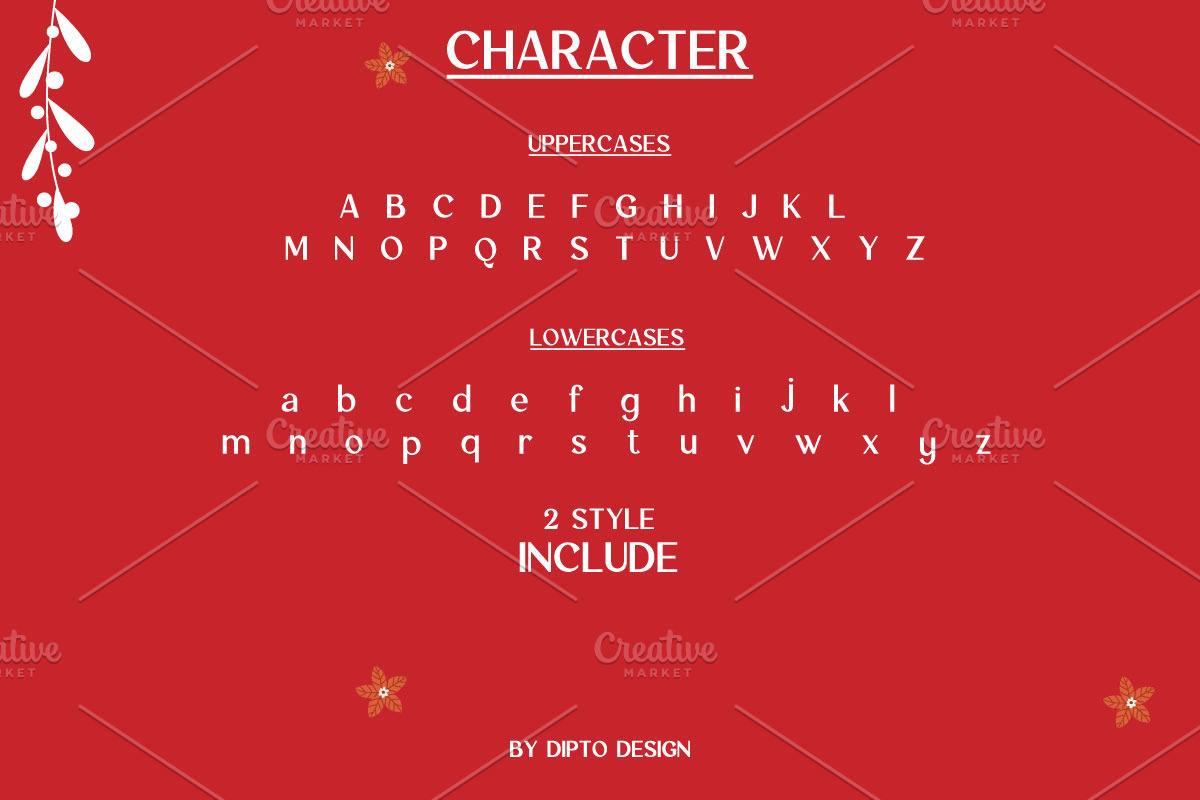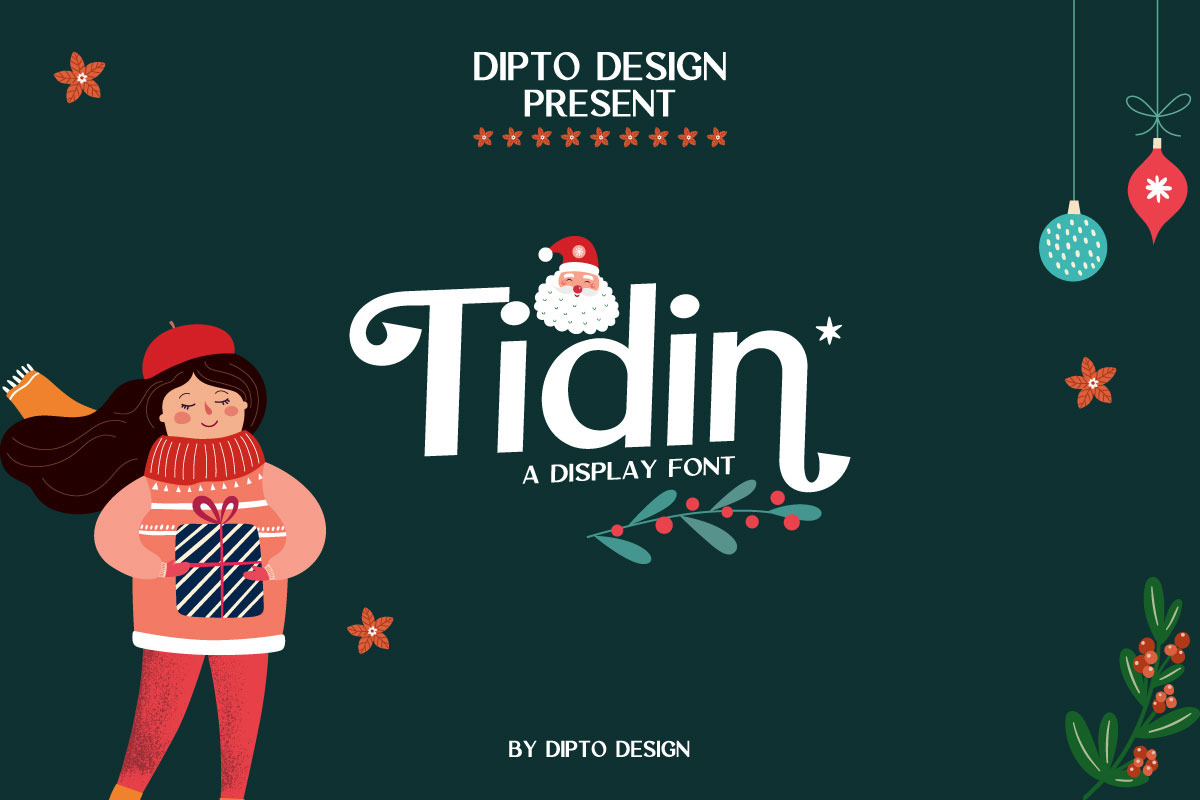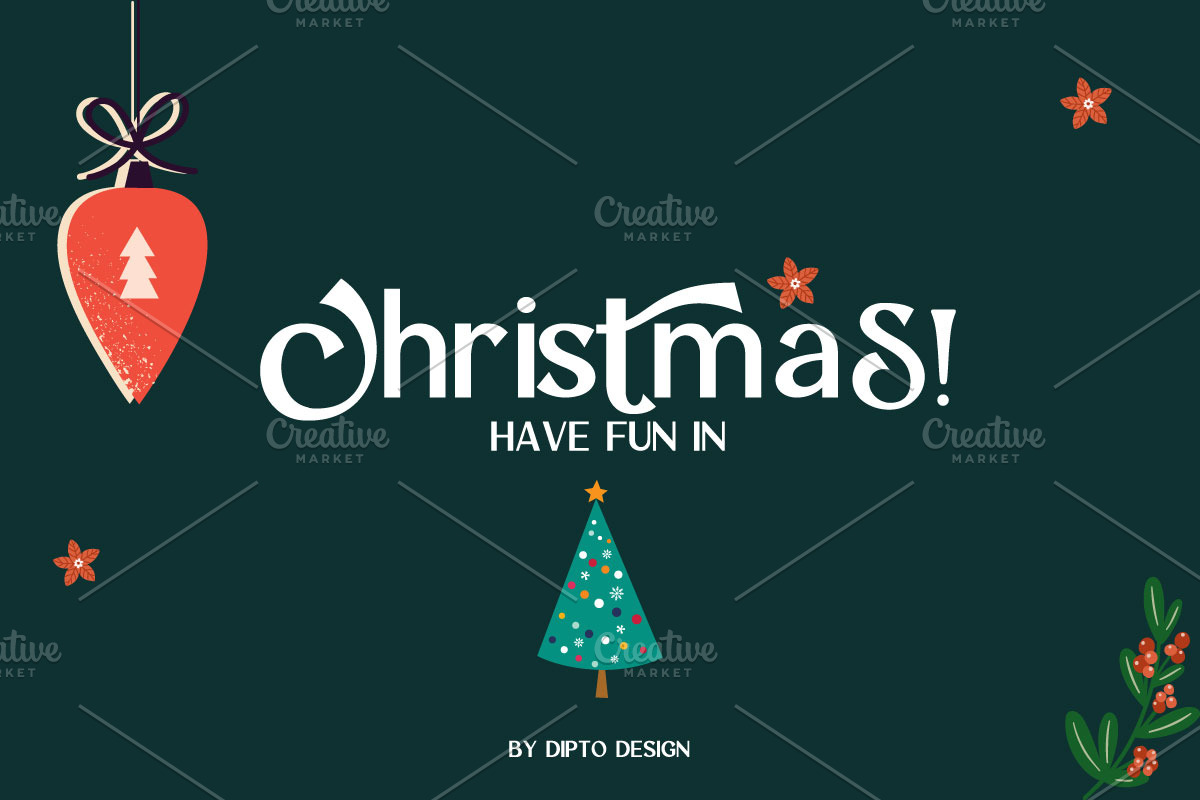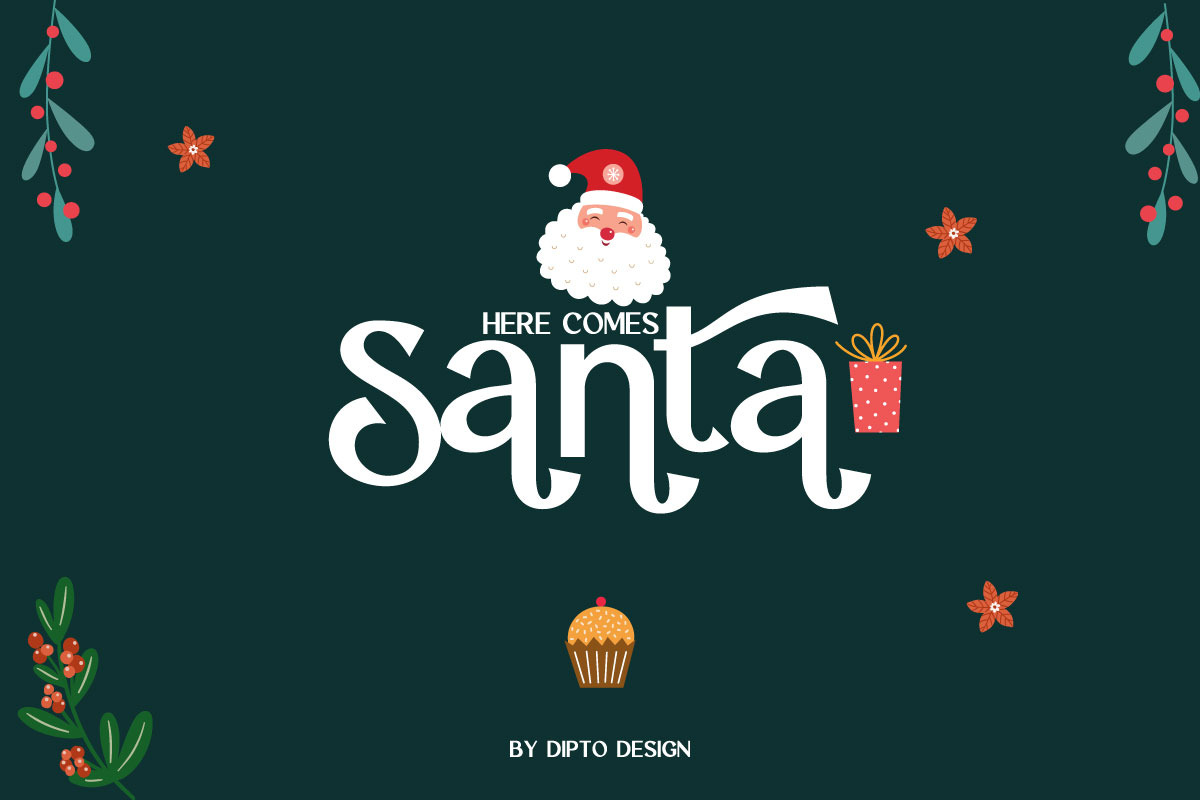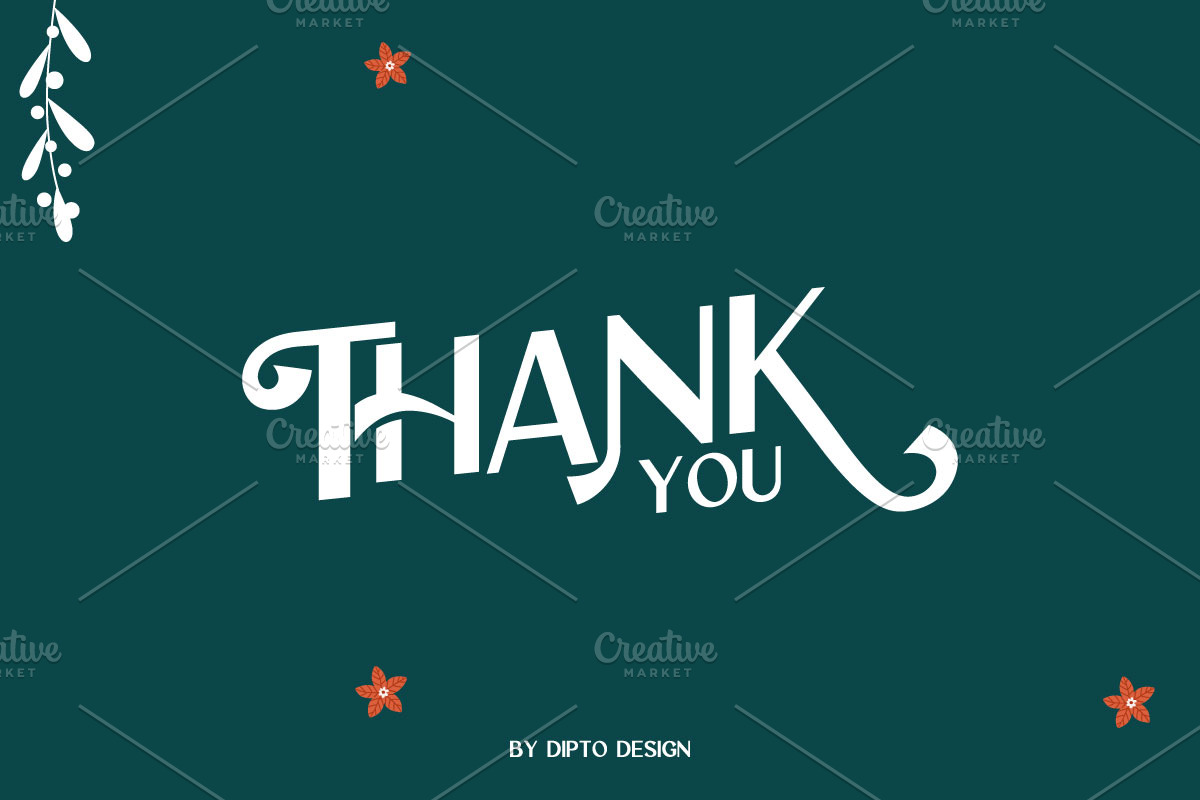
Tidin-Christmas Typeface
Introducing 'Tidin' font, where the magic of the holiday season dances in every letter. With an enchanting blend of style and festivity, this font is your ticket to a world of enjoyable design. It effortlessly wraps your words in the warmth of a cozy, cheerful fireplace, making your creations as delightful as a cup of cocoa by the Christmas tree. 'Tidin' font turns your projects into a joyful journey, infusing them with the merriment of the season. Get ready to spread happiness and holiday vibes with 'Tidin' - because design should be as enjoyable as the holiday season itself!" 🎄🔔✨
- 2 font styles
- Festival Vibes!
- Over 260 Ligatures Across Both Fonts
- Lowercase and Uppercase letters